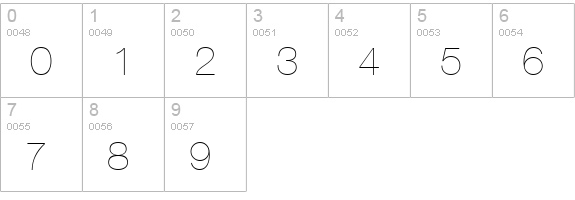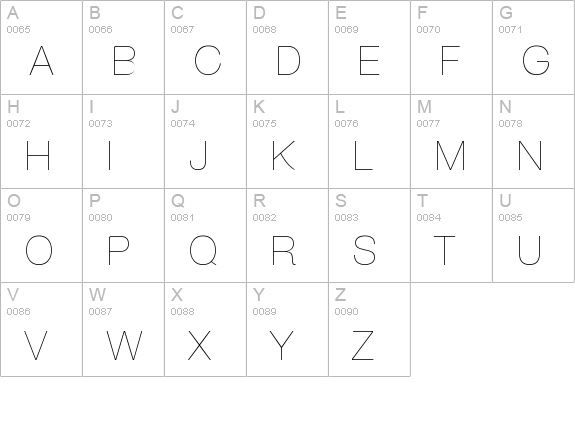
Aovel Sans Light Font Details
Aovel Sans Light is a refined, elegant variant in the Aovel typeface family \xE2\x80\x94 well suited to elegant body text, refined sub-headings, and luxury branding.
Aovel Sans Light is a beautiful and elegant font that exudes sophistication and modernity. With its clean lines and delicate curves, this font is perfect for projects that require a touch of refinement. Whether you're designing a logo, creating a stylish invitation, or crafting a sleek website, Aovel Sans Light will elevate your design to new heights. This font is not only visually stunning, but it is also incredibly versatile. Its light weight makes it ideal for headlines, titles, and body text alike, ensuring that every element of your design flows seamlessly together. The legibility of Aovel Sans Light is unparalleled, making it a go-to choice for any project that requires clear and easy-to-read text. What makes Aovel Sans Light even more appealing is that it is completely free to download. Yes, you read that right – this stunning font can be yours at no cost. Simply head over to FontsMarket.com and grab your copy today. Whether you're a professional designer or a hobbyist, the accessibility of Aovel Sans Light means that you can create stunning projects without breaking the bank. So why wait? Enhance your designs with the elegance and versatility of Aovel Sans Light. Download it for free at FontsMarket.com and unlock a world of possibilities.